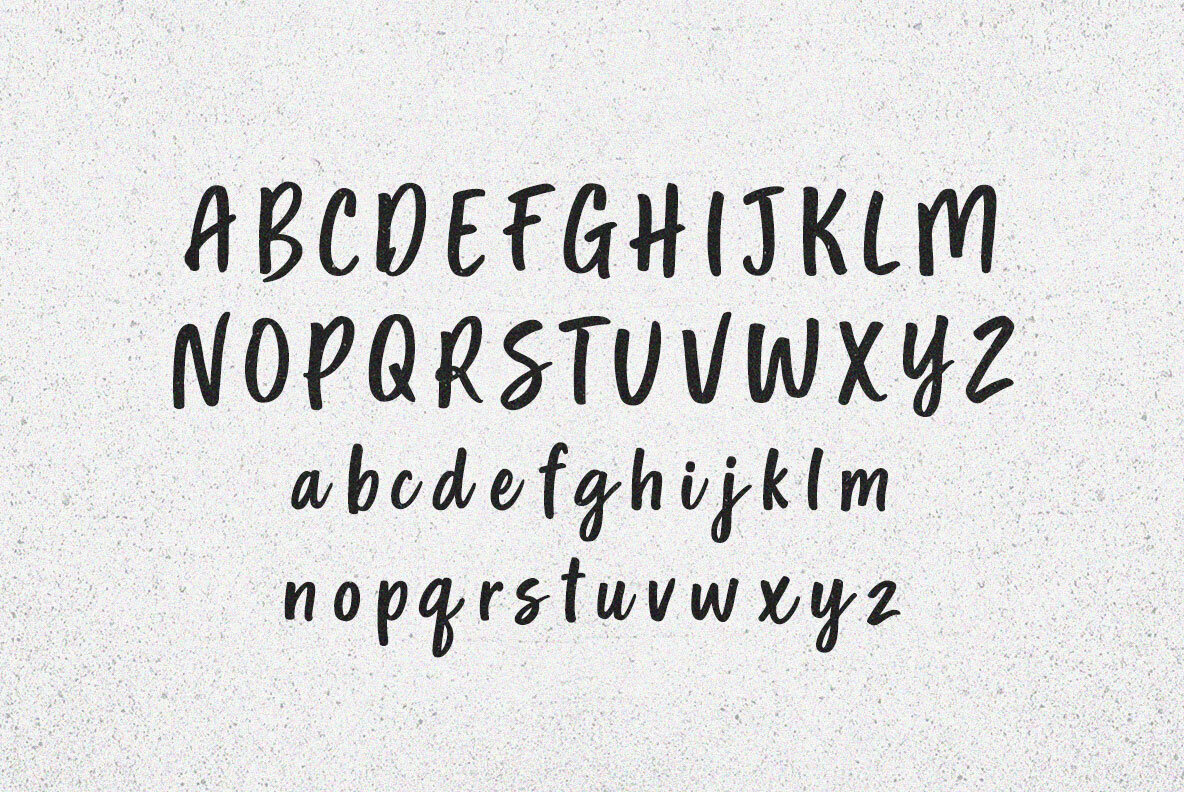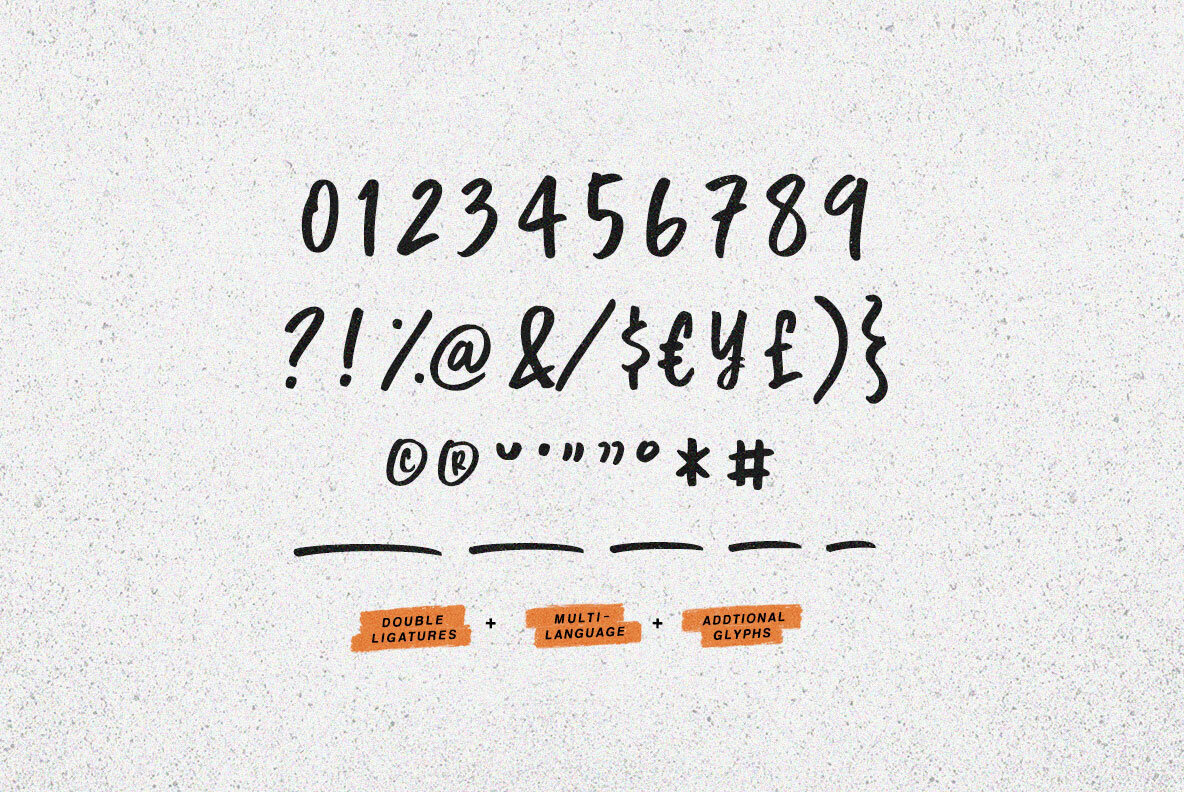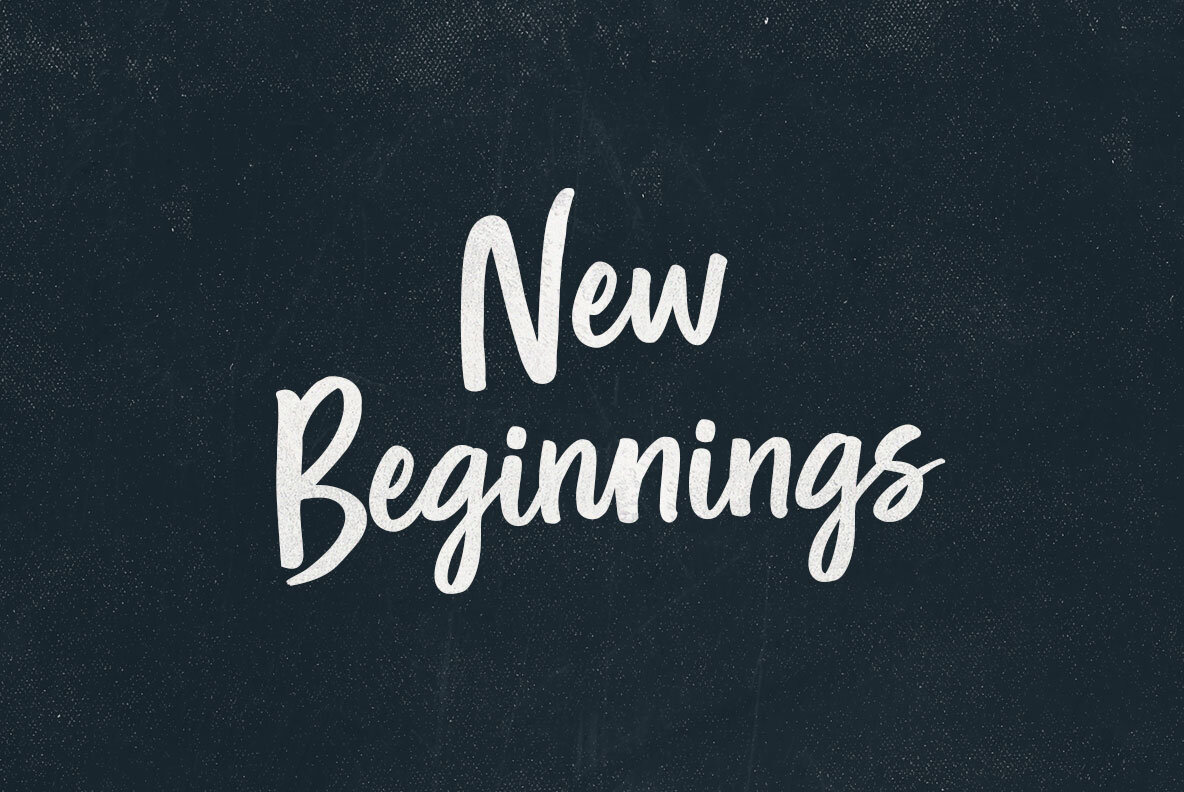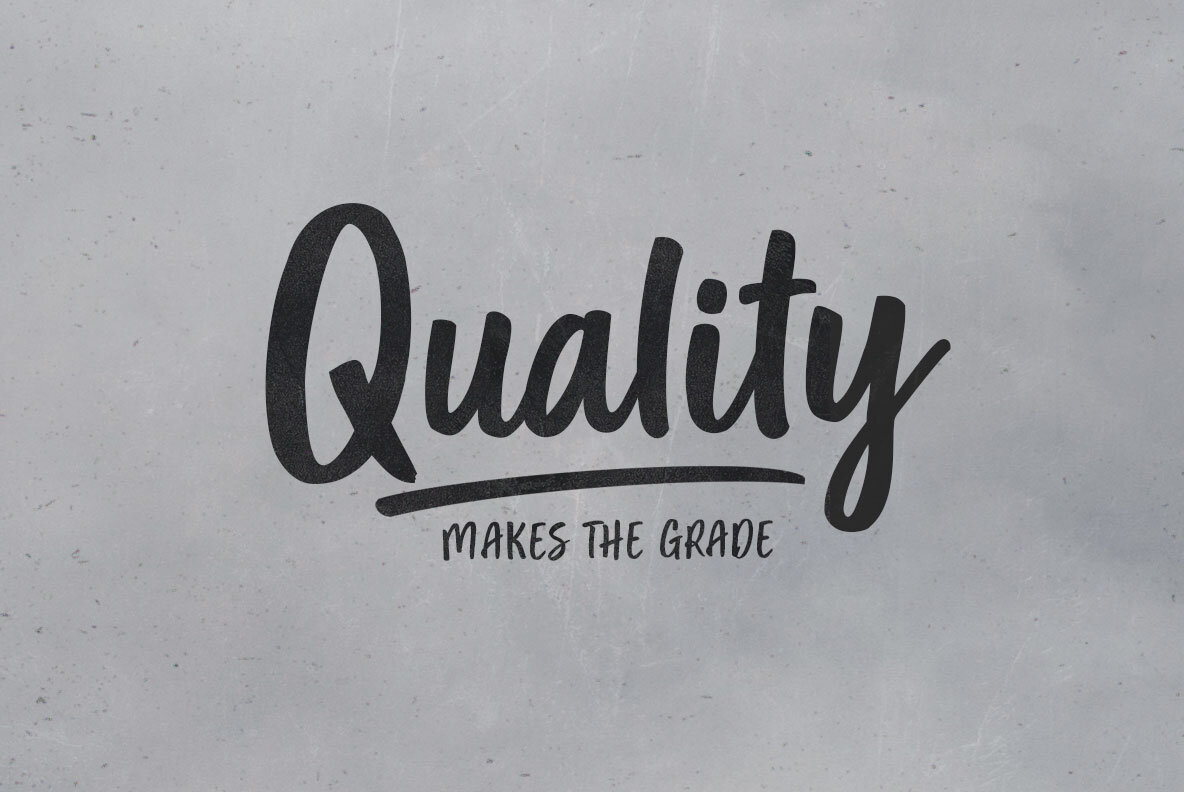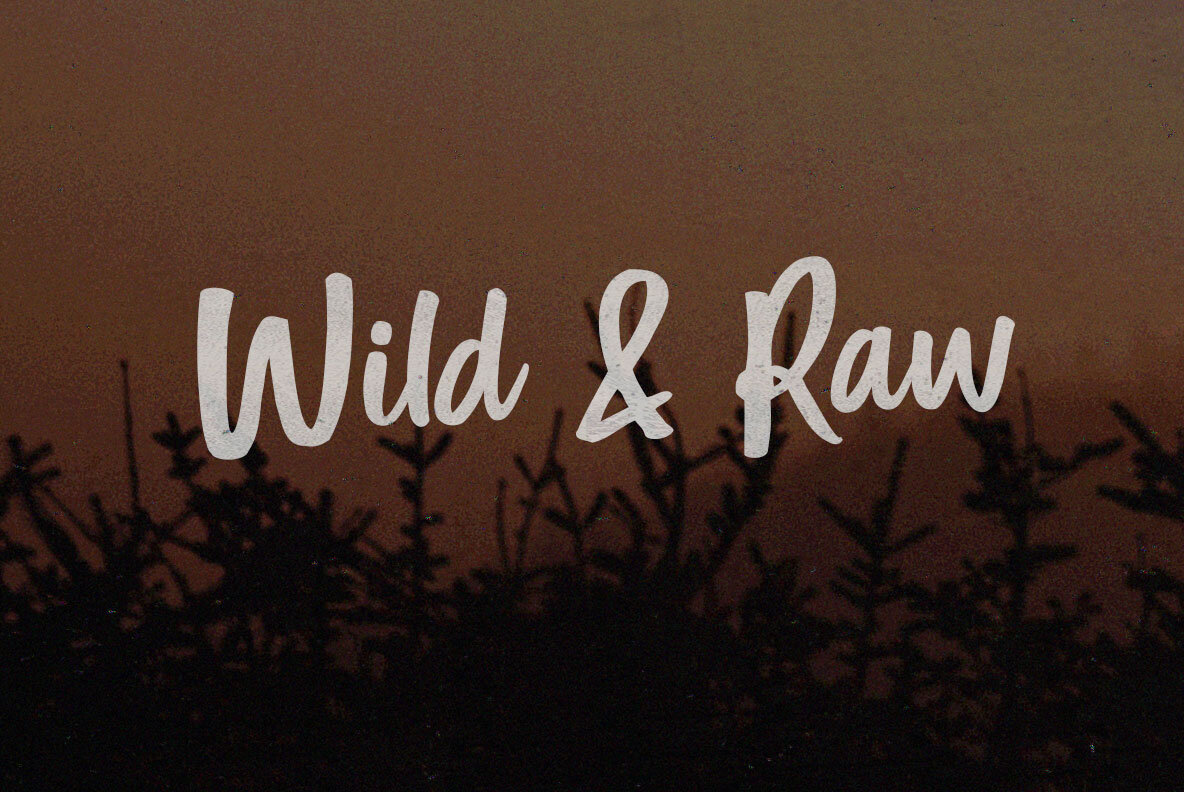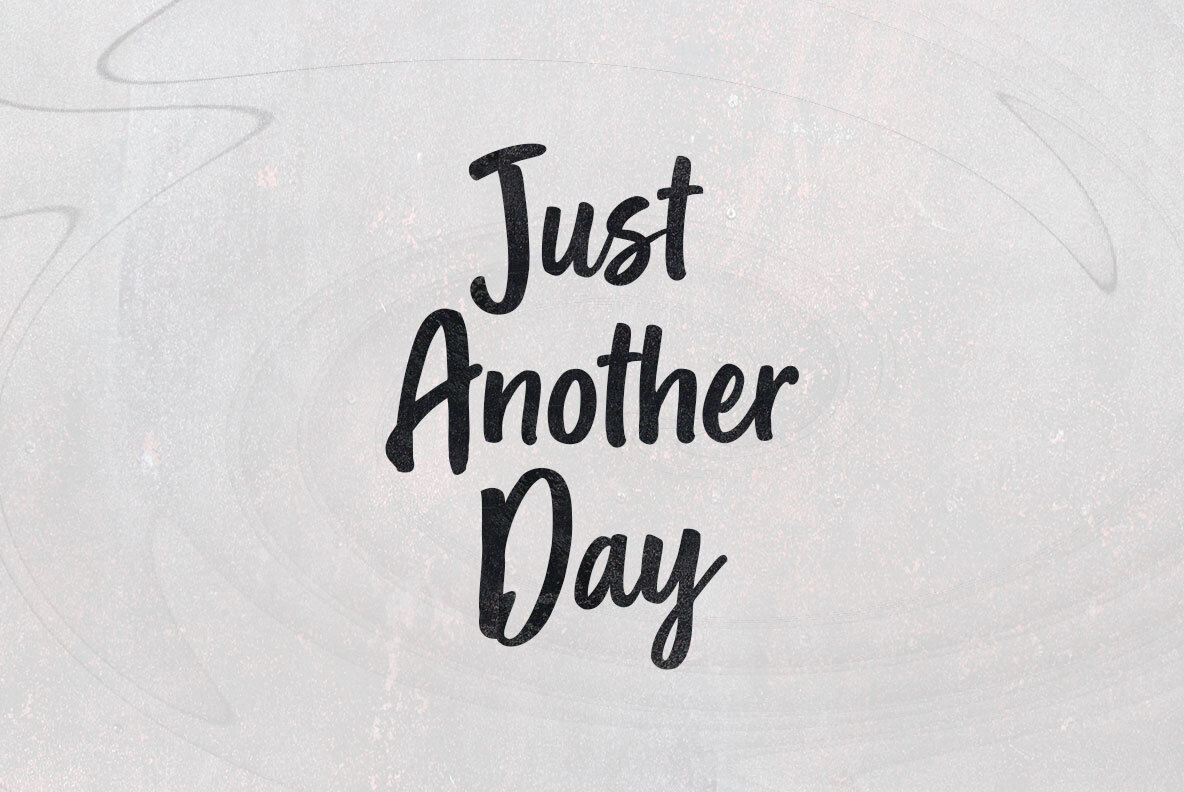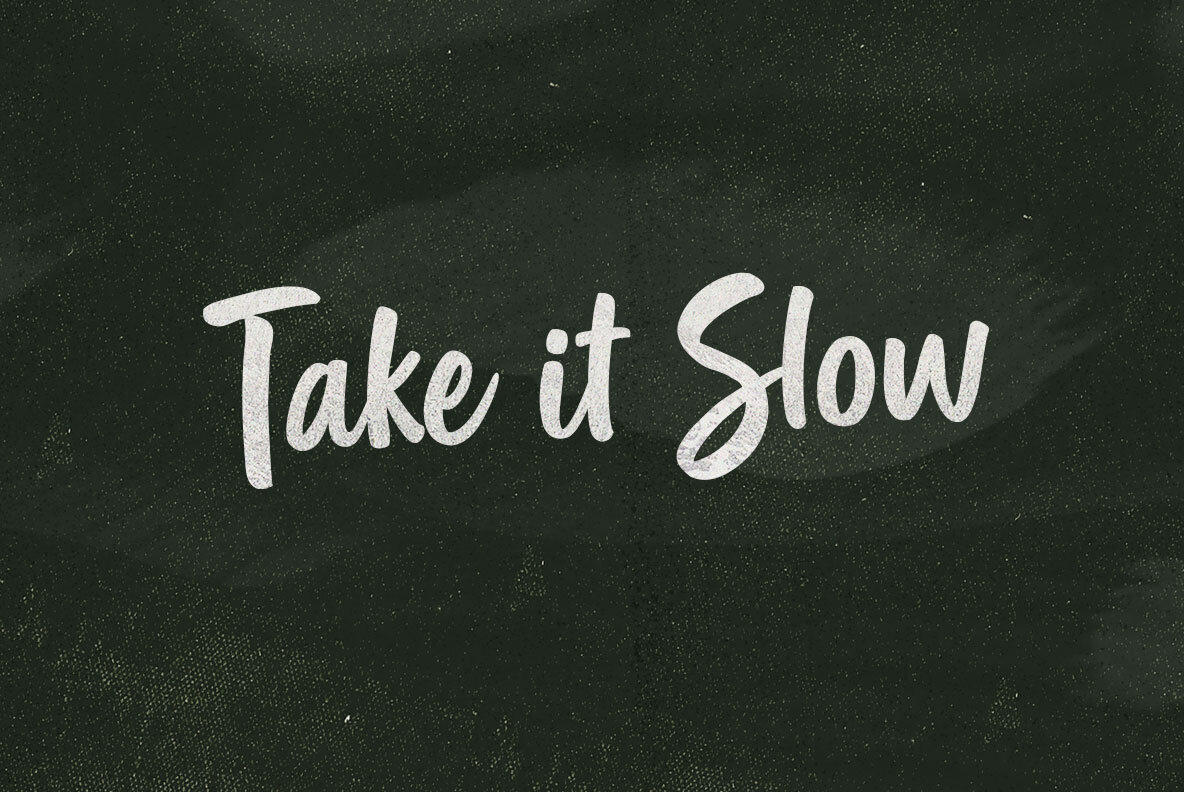
Free Style Font
Free Style
Prizes upon prizes. A bigger pot by the play with a bigger price to pay. Caught by a Free Style, razzle dazzle at the ready, with wallets opened by avarice and a fleeting chance to win. But sink costs in the dunk tank, you win until you quit.